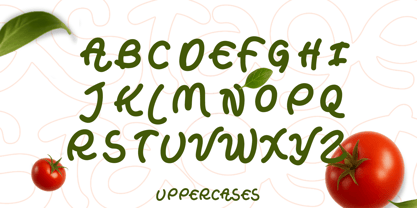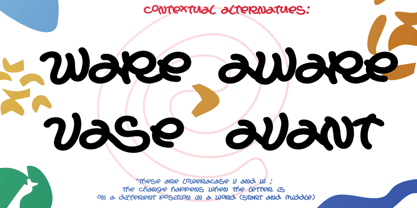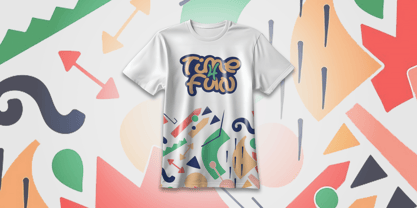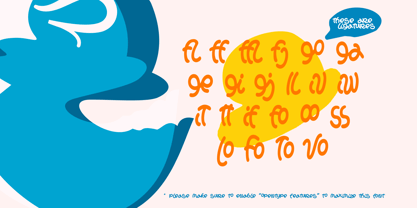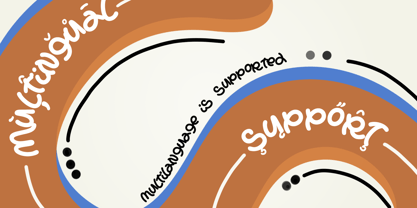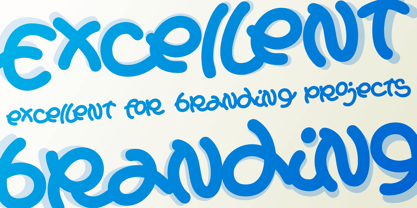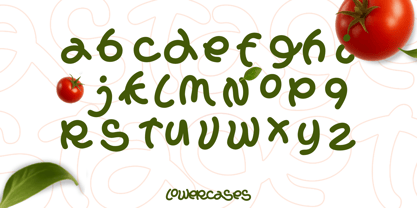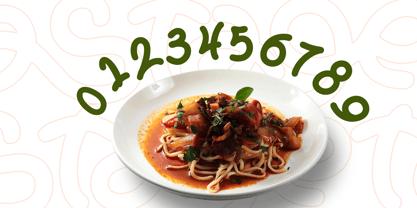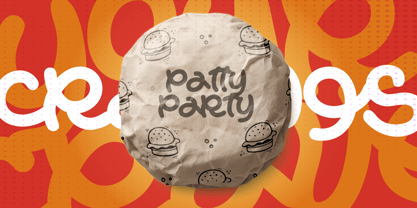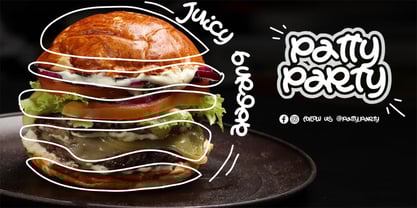
Pastageti
The Pastageti Font Family was designed by Lorenzo Gabriel Martinez and published by Lurinzu Studios. Pastageti contains 1 styles. More about this family
Pastageti is a bold and fun script ligature font inspired by the curly, flowing shapes of dry instant noodles and freshly cooked pasta. Designed with dozens of playful ligatures, it ensures seamless letter connections that bring life and movement to your typography. With full multilingual support, Pastageti is ideal for designers worldwide who seek a font that’s as versatile as it is charming.
Its smooth, organic curves make it an excellent choice for restaurant branding, café menus, food packaging, and social media graphics.
Whether you’re crafting a logotype for an Italian restaurant in Rome, a pasta bar in New York, or a food truck in Manila, Pastageti delivers a deliciously warm and inviting personality that works beautifully in both print and digital designs.
• Food & beverage branding
• Café and restaurant menus
• Pasta and noodle product packaging
• Social media ads & posters
• Lifestyle blogs and YouTube thumbnails
• Dozens of stylish ligatures and contextual alternates for natural letter flow
• Multilanguage support
• Uppercase & lowercase letters
Bring the taste of Italy and the joy of playful lettering to your next design with Pastageti - where every letter feels like a twirl of pasta on a fork.